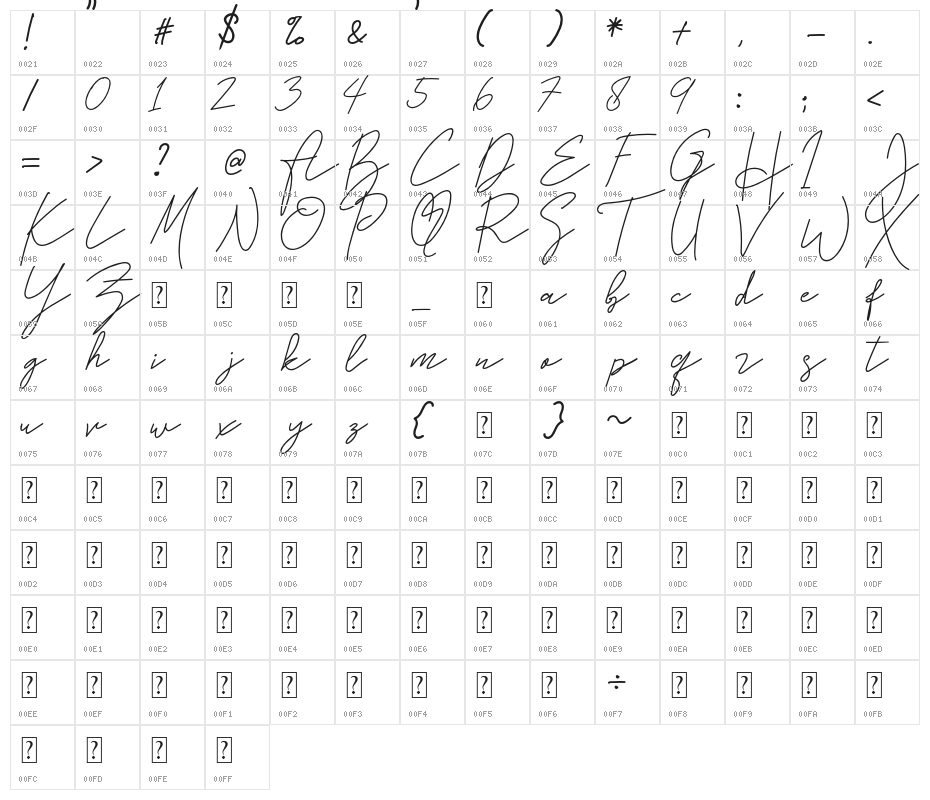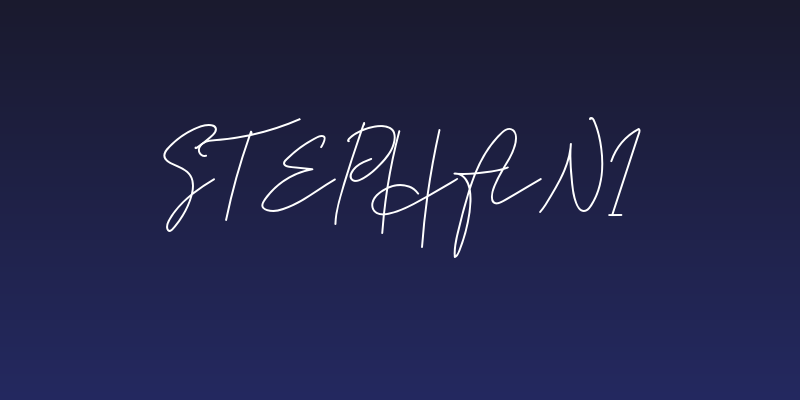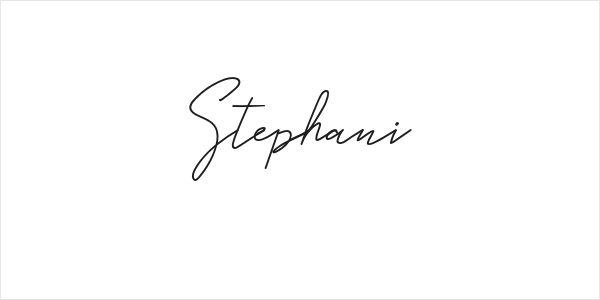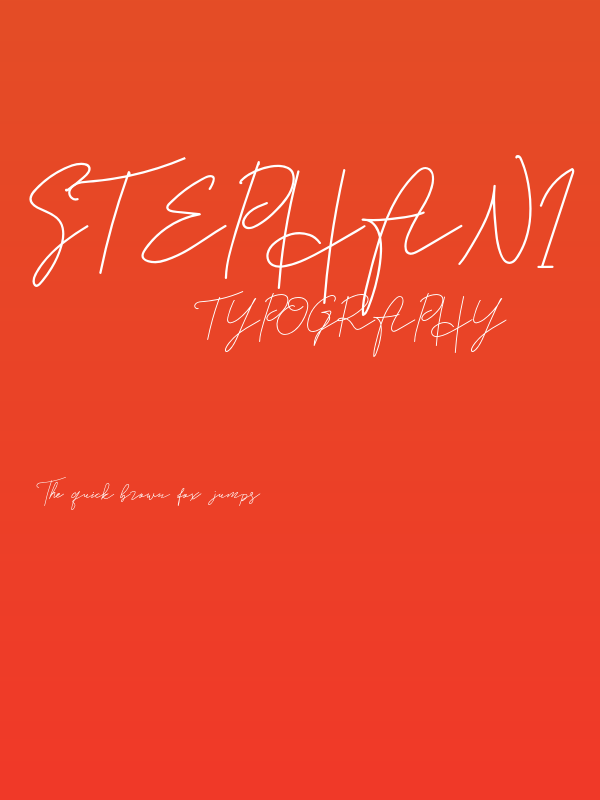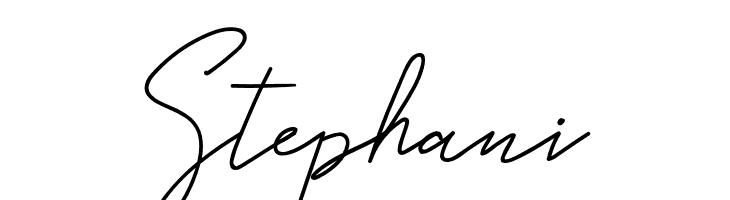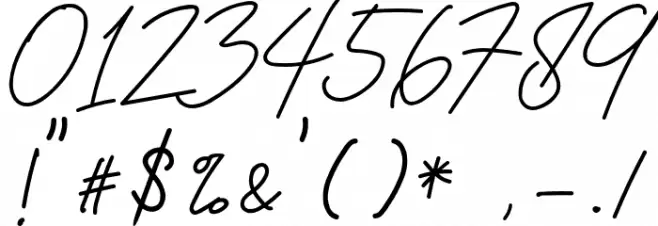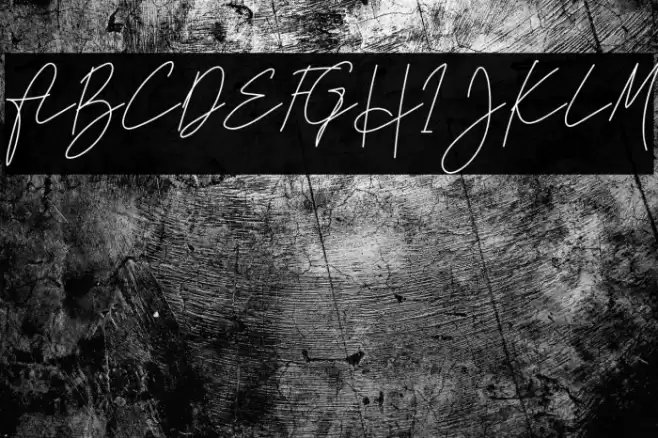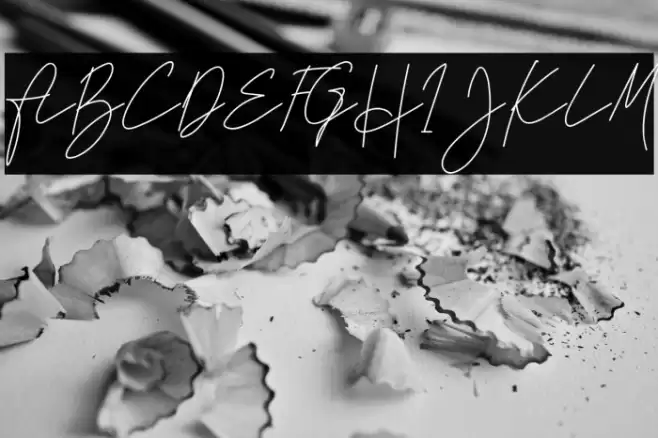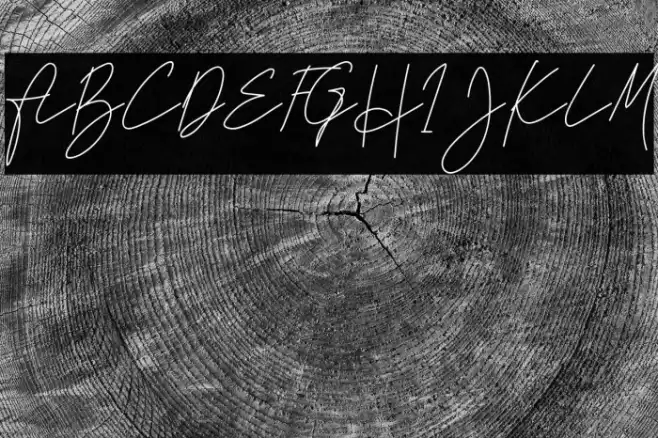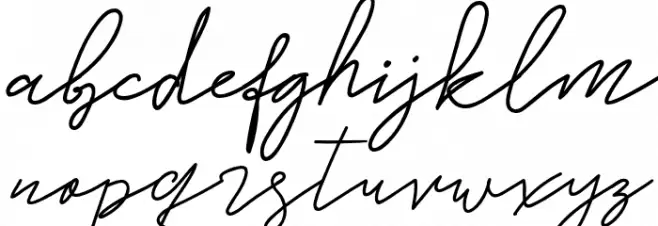
Stephani Font
| Gesamtstil | Elegant, Handwritten |
| Anwendungsfall | Logos, Invitations, Personal Correspondence |
| Vorgeschlagene Projekte | Ideal for wedding invitations, personal letters, branding projects, and any design requiring a personal, elegant touch. |